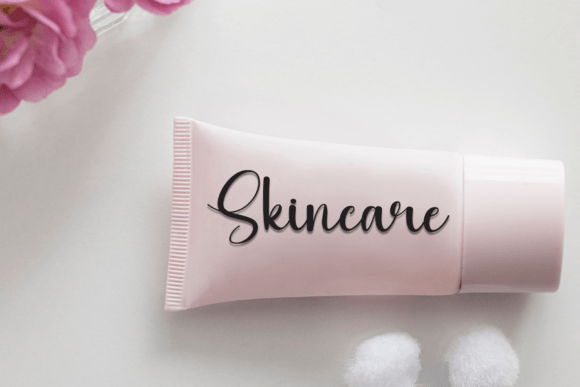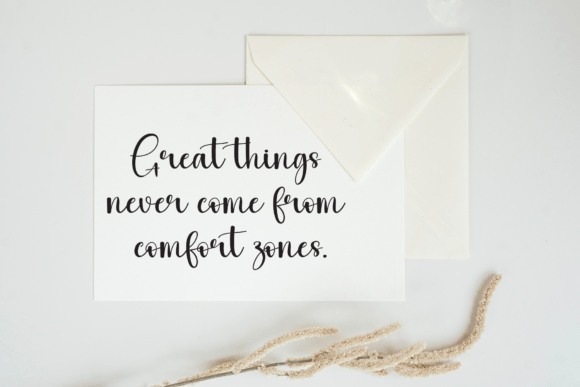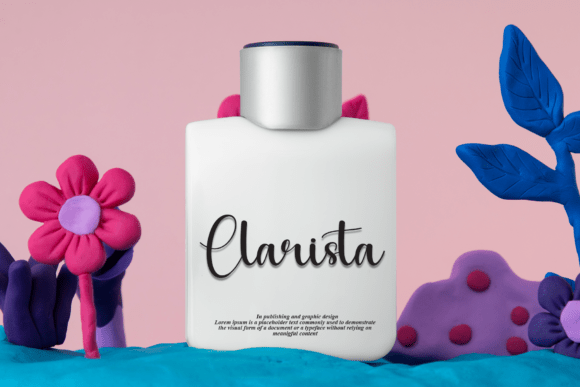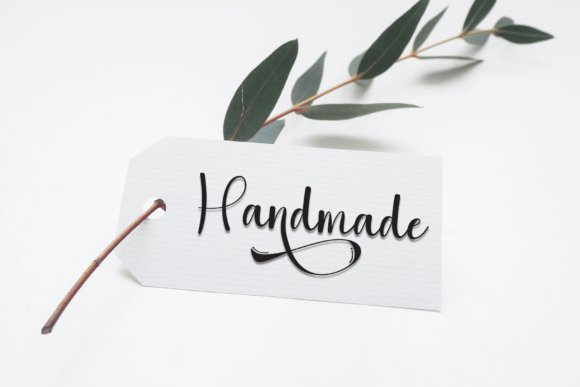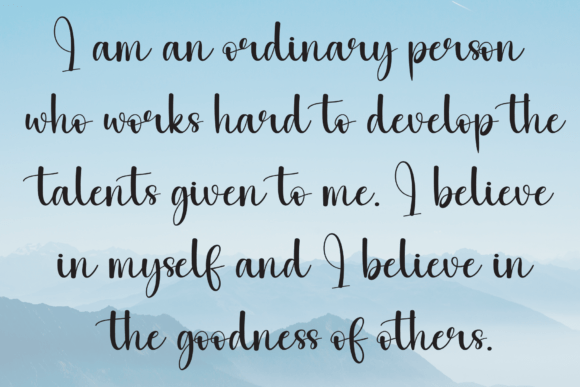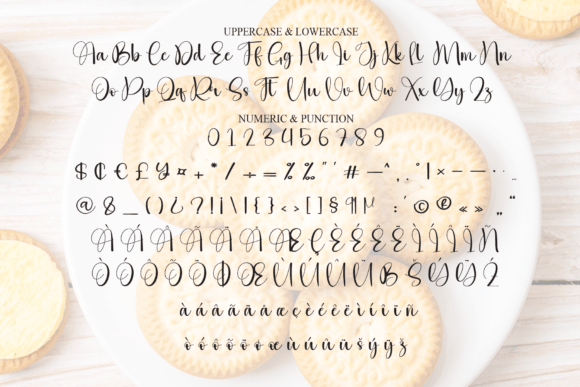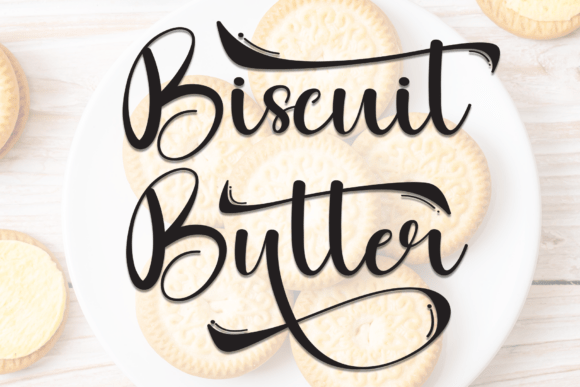
The Biscuit Butter Font: A Sweet Addition to Your Design Toolkit
I’ll never forget the time I was working on a branding project for a trendy bakery, and I just couldn’t find the perfect font to capture their warm and inviting vibe. The client wanted something that felt both elegant and modern, but everything I tried seemed to fall flat. That’s when I stumbled upon the Biscuit Butter font, and let me tell you, it was love at first sight! 💕
A Font that Checks All the Boxes
Biscuit Butter is a stylish handwritten script font that combines elegance with a modern flair. Its flowing strokes and organic curves bring warmth and sophistication to any project. Here are some reasons why I’m obsessed:
- ✨ Elegant and refined, perfect for high-end branding and invitations
- ✅ Modern and trendy, great for social media and digital content
- 💫 Highly legible, even at smaller font sizes
- 🌈 Versatile, works well with a variety of design styles and color palettes
The Honest Review: Love and Quirks
While Biscuit Butter is an amazing font, it’s not perfect. Here’s my honest review:
- ✨ The font’s organic feel makes it perfect for adding a personal touch to designs
- ✅ The OpenType features, including glyphs and stylistic alternates, offer a lot of creative flexibility
- 💫 The font’s extensive character set, including support for multiple languages
⚠️ One thing to note is that Biscuit Butter can be a bit finicky when it comes to kerning, especially at larger font sizes. However, this is a minor trade-off for the font’s unique charm.
🤔 Another thing to consider is that the font’s script style may not be suitable for very formal or traditional designs.
Biscuit Butter was designed with the goal of creating a font that felt both elegant and approachable. The designer, Emily, was inspired by the warm, inviting atmosphere of her favorite coffee shops and bakeries. She wanted to create a font that captured that same feeling of comfort and sophistication.
Q: What is the Biscuit Butter font?
A: Biscuit Butter is a stylish handwritten script font that combines elegance with a modern flair.
Q: What is Biscuit Butter best used for?
A: Biscuit Butter is ideal for branding, invitations, and social media, as it adds a personal, refined touch with effortless charm.
Q: Is Biscuit Butter easy to read?
A: Yes, Biscuit Butter is highly legible, even at smaller font sizes, making it perfect for a variety of design applications.